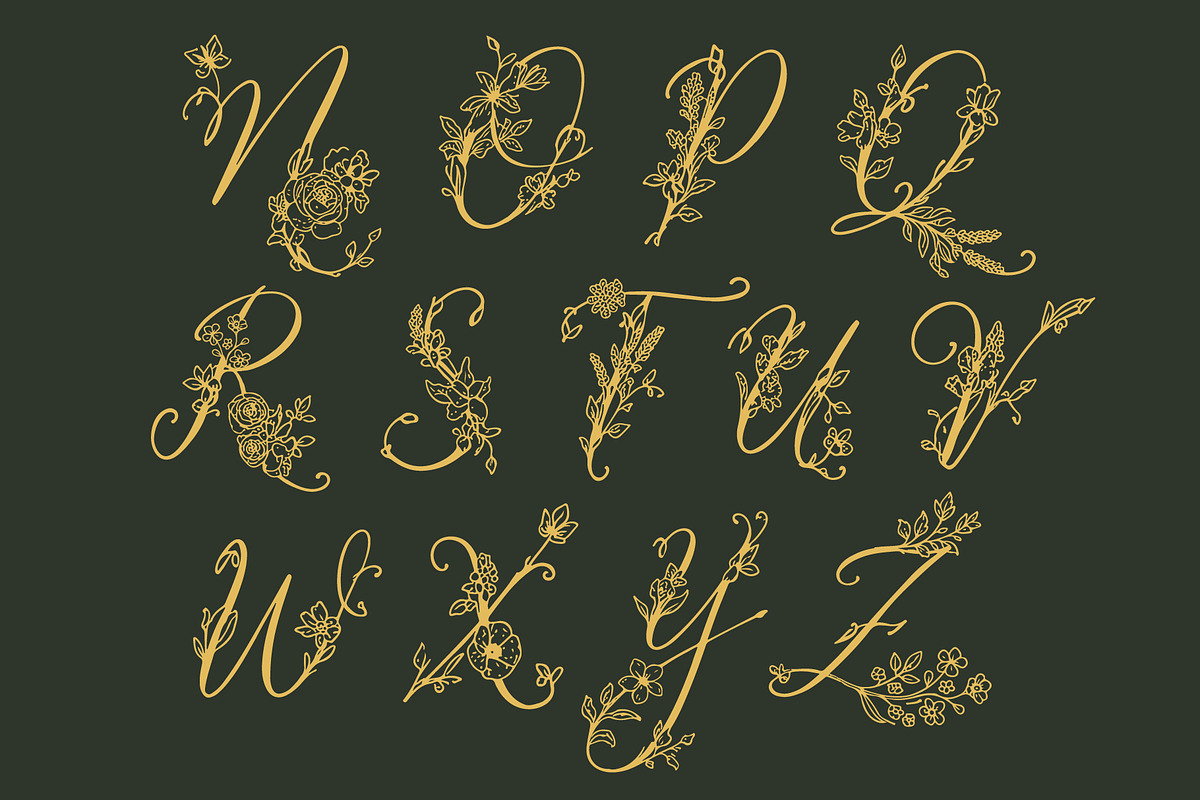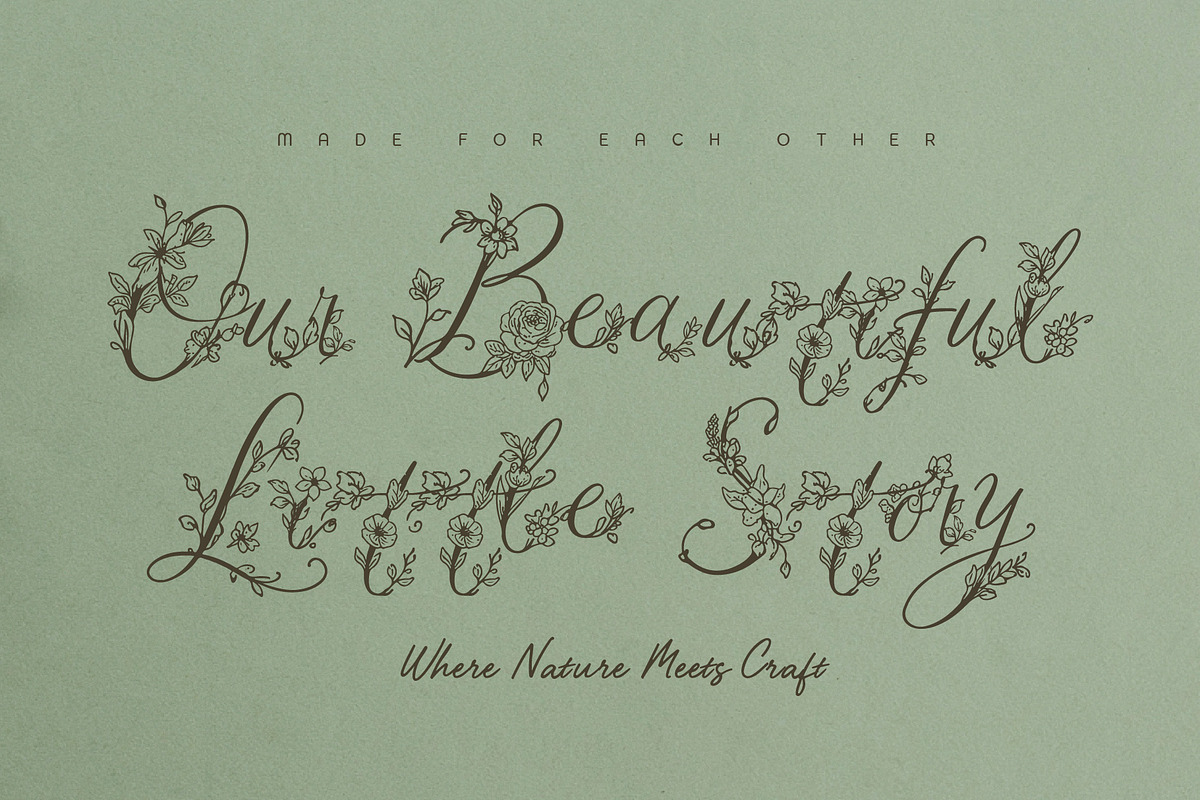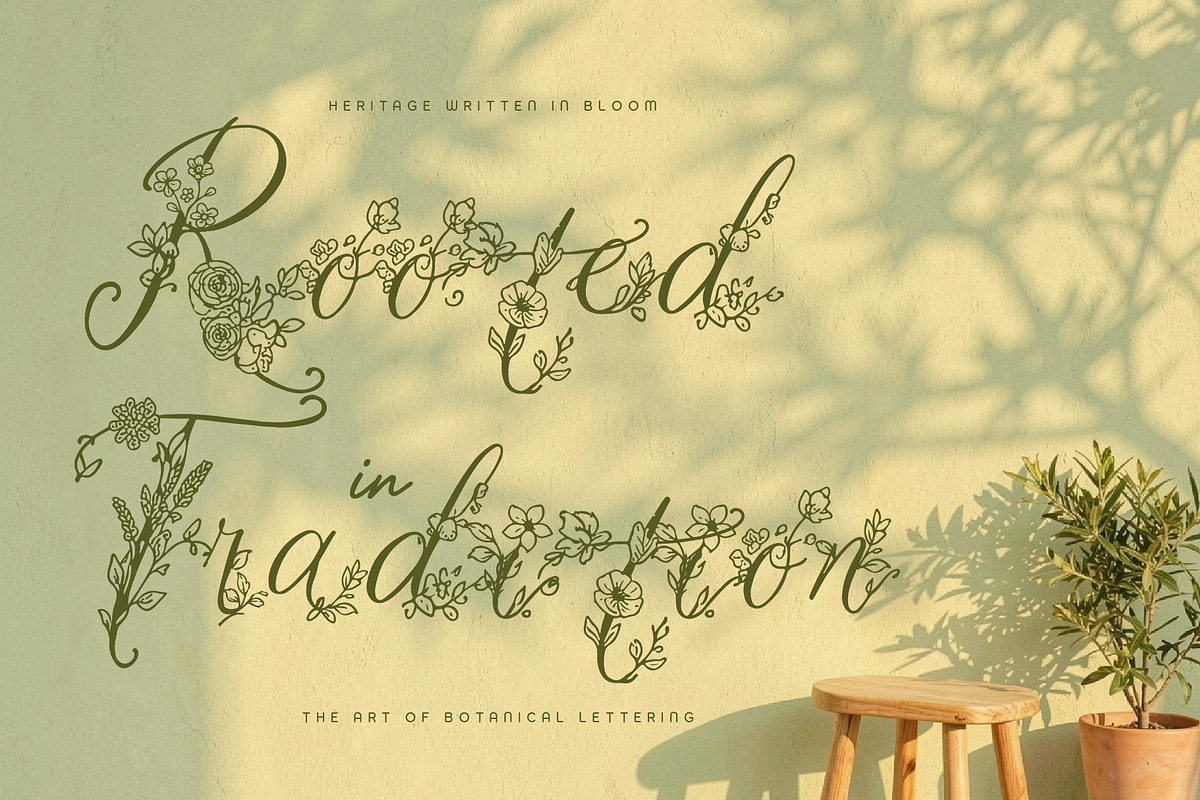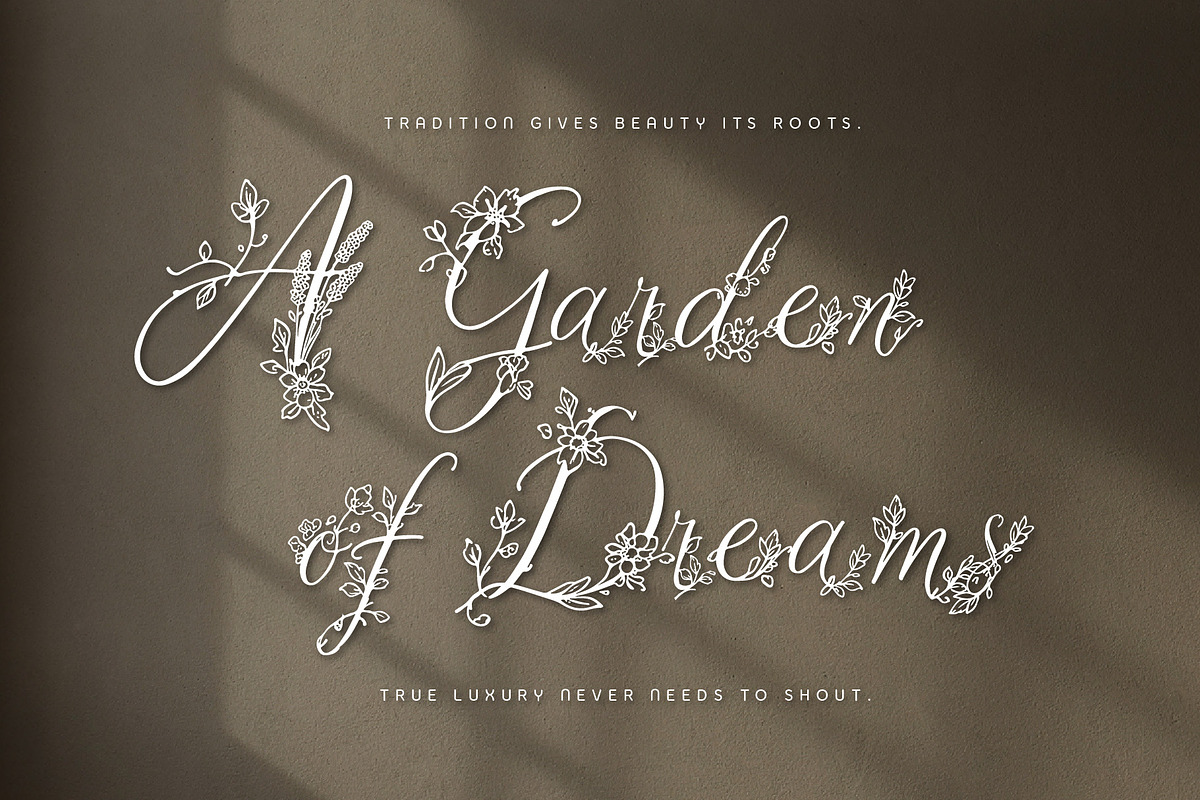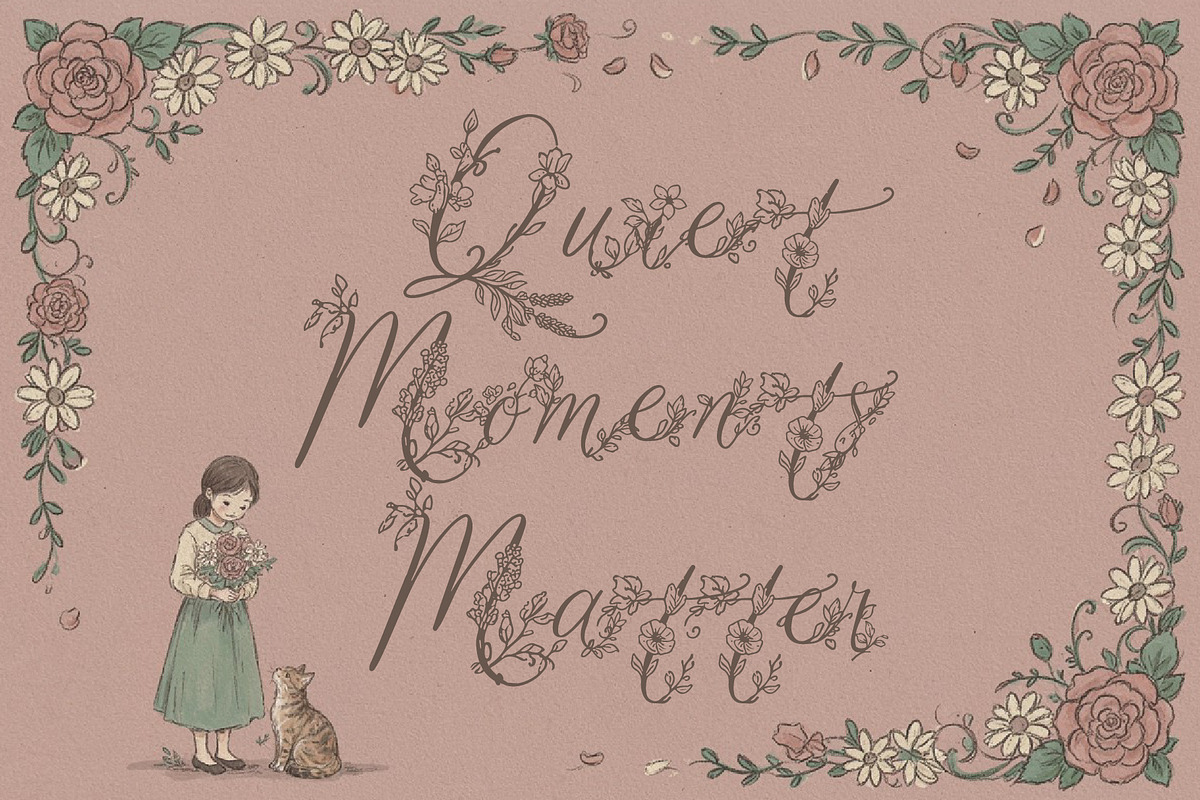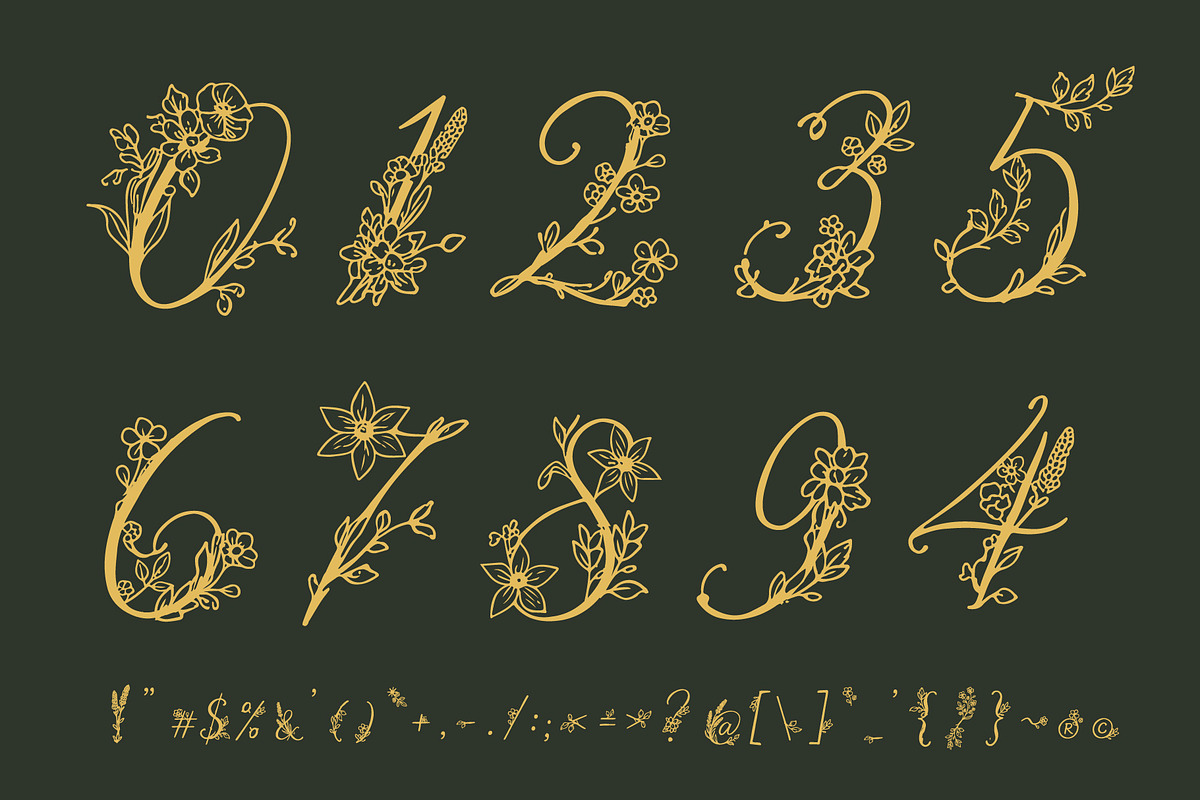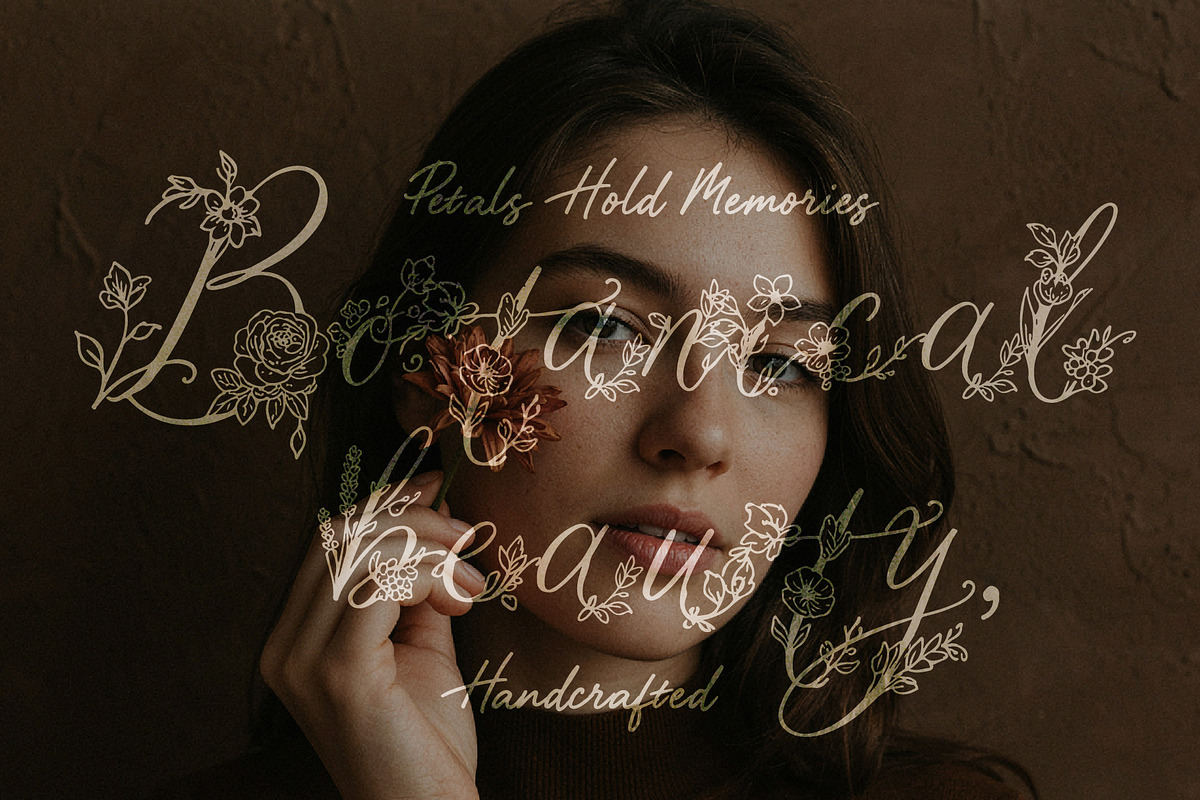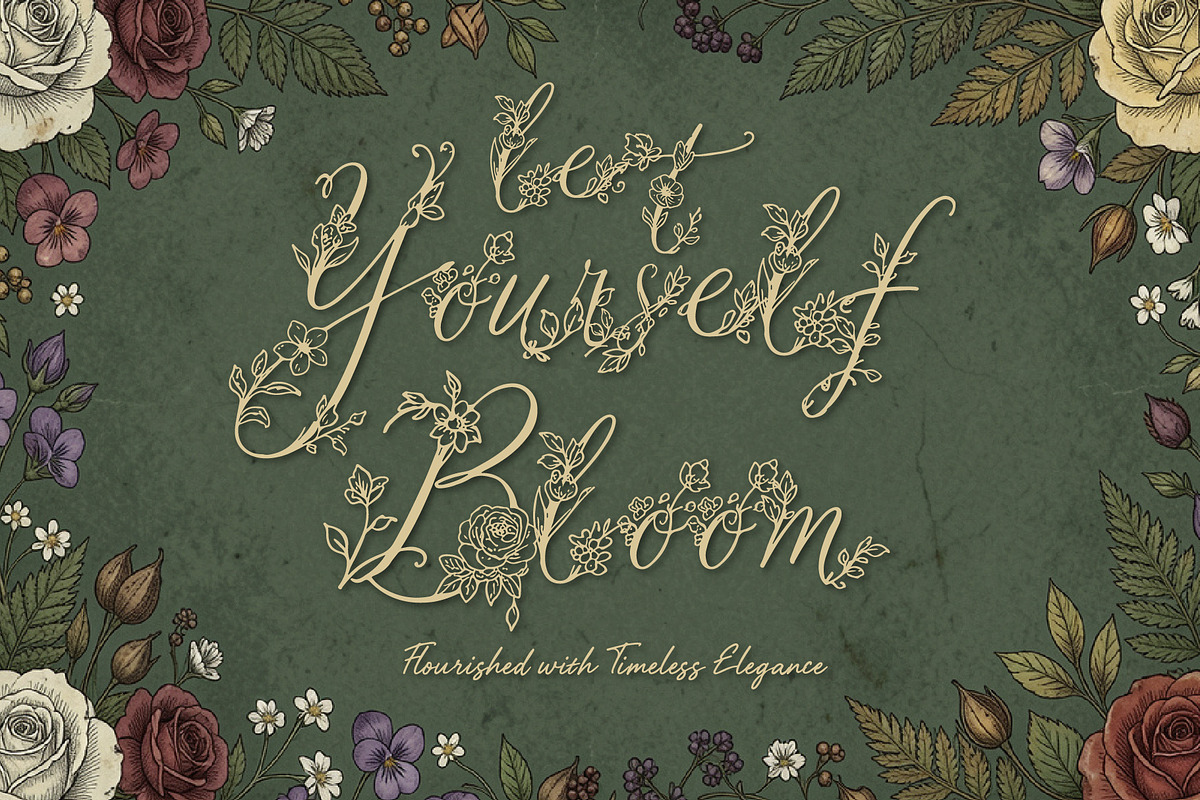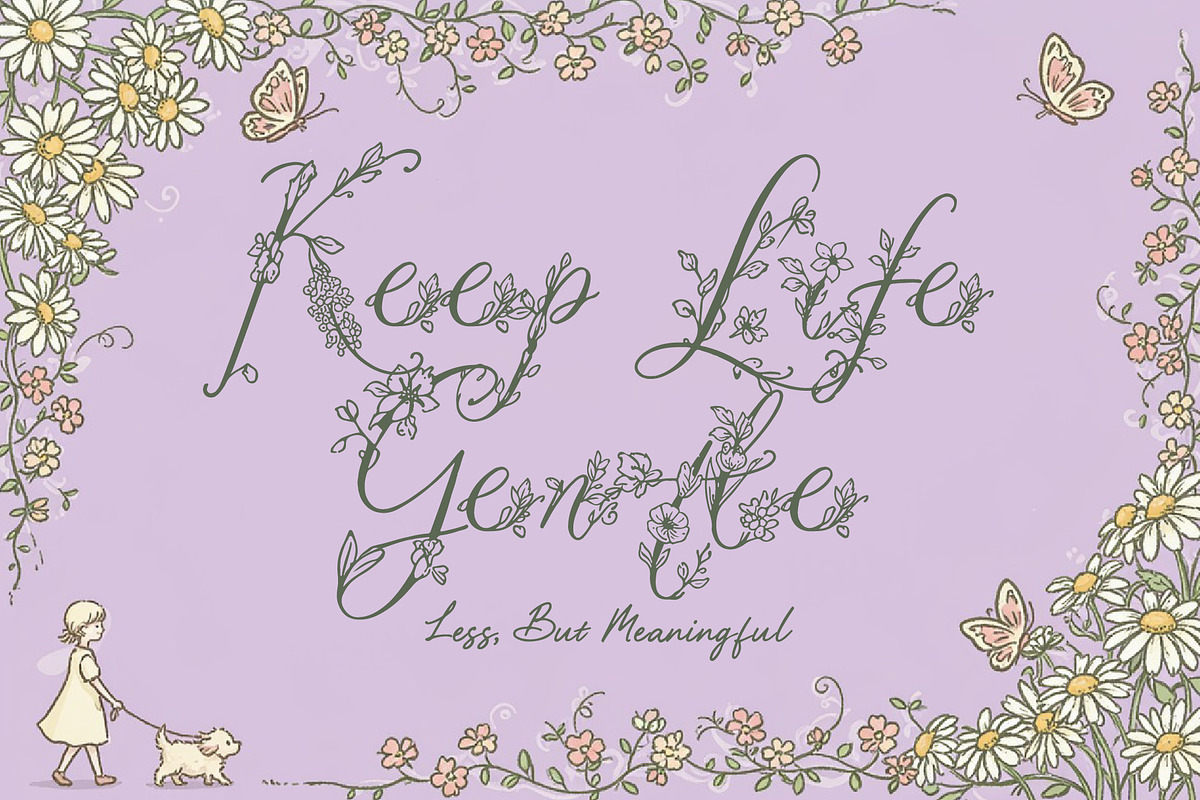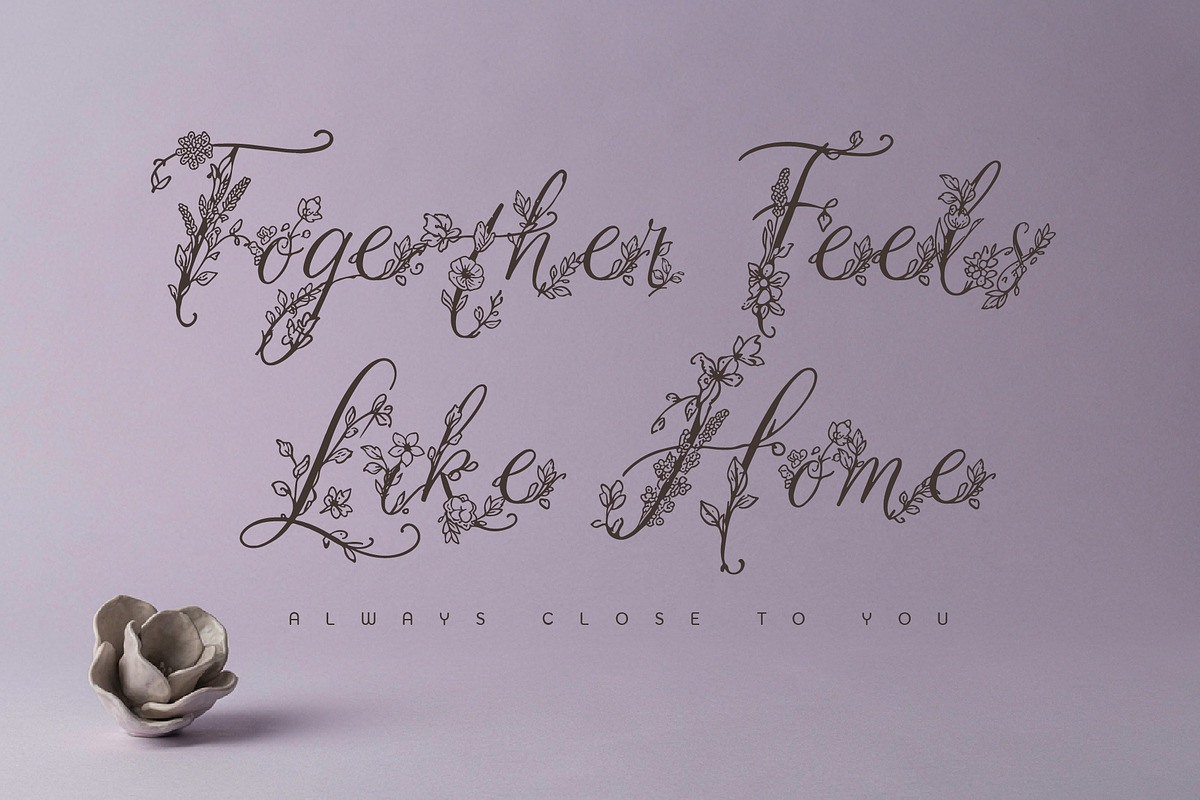
MiRohlWay - Floral Elegant Script
MiRohlWay is a sophisticated floral and botanical handwritten script that combines graceful lettering with elegant decorative foliage, petals, and ornamental details. Its flowing strokes create a handcrafted character, while the botanical flourishes bring a refined, timeless beauty.
Inspired by heritage craftsmanship, botanical illustration, artisan lettering, and old-world luxury, MiRohlWay is designed for projects that need an elegant yet distinctive handmade touch.
MiRohlWay, botanical elegance, crafted by hand.